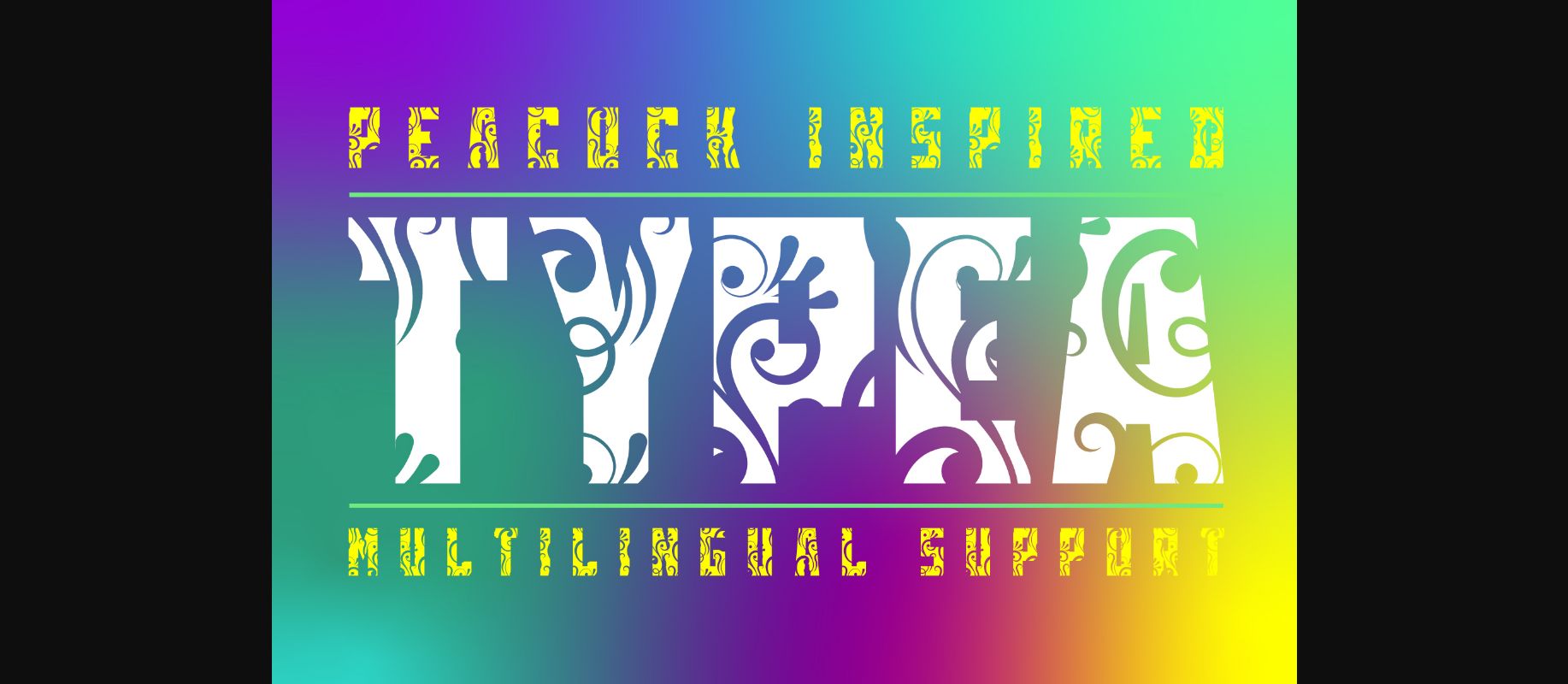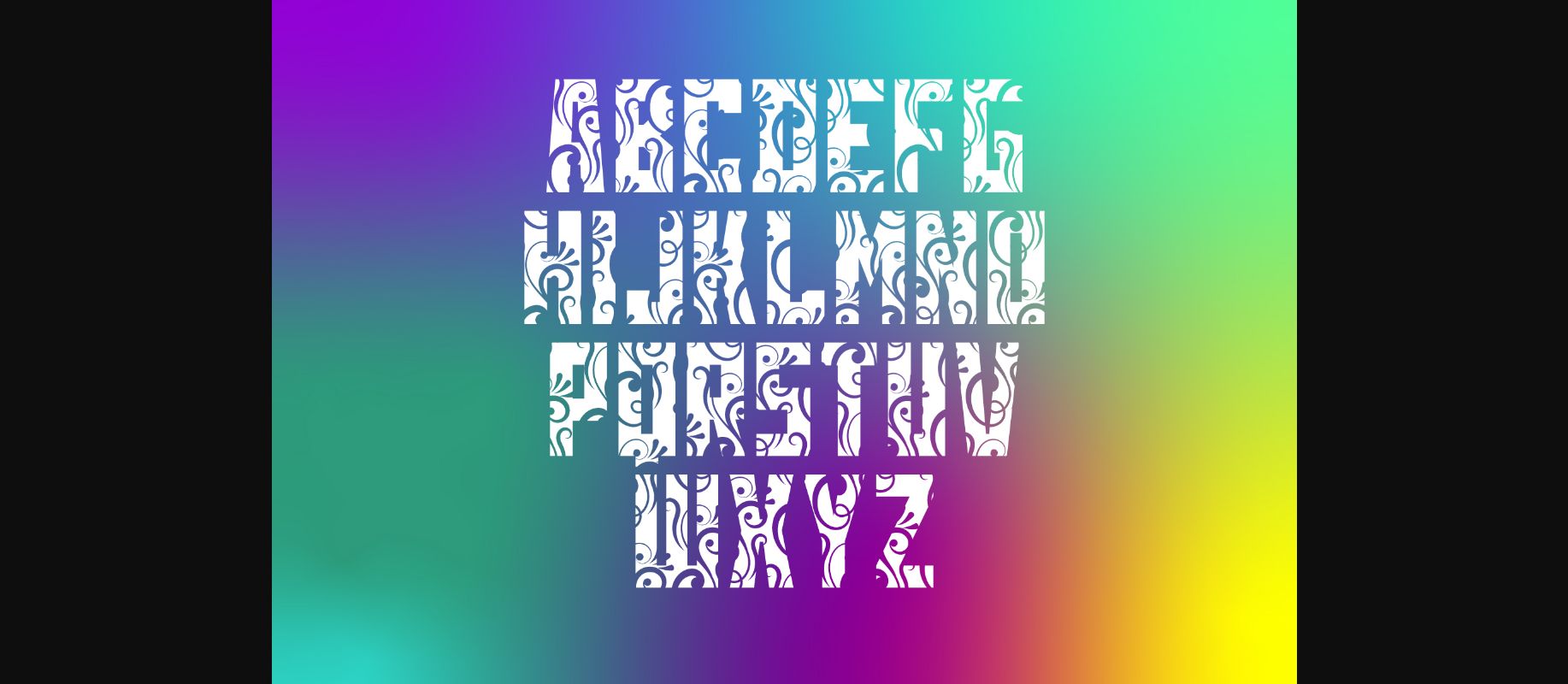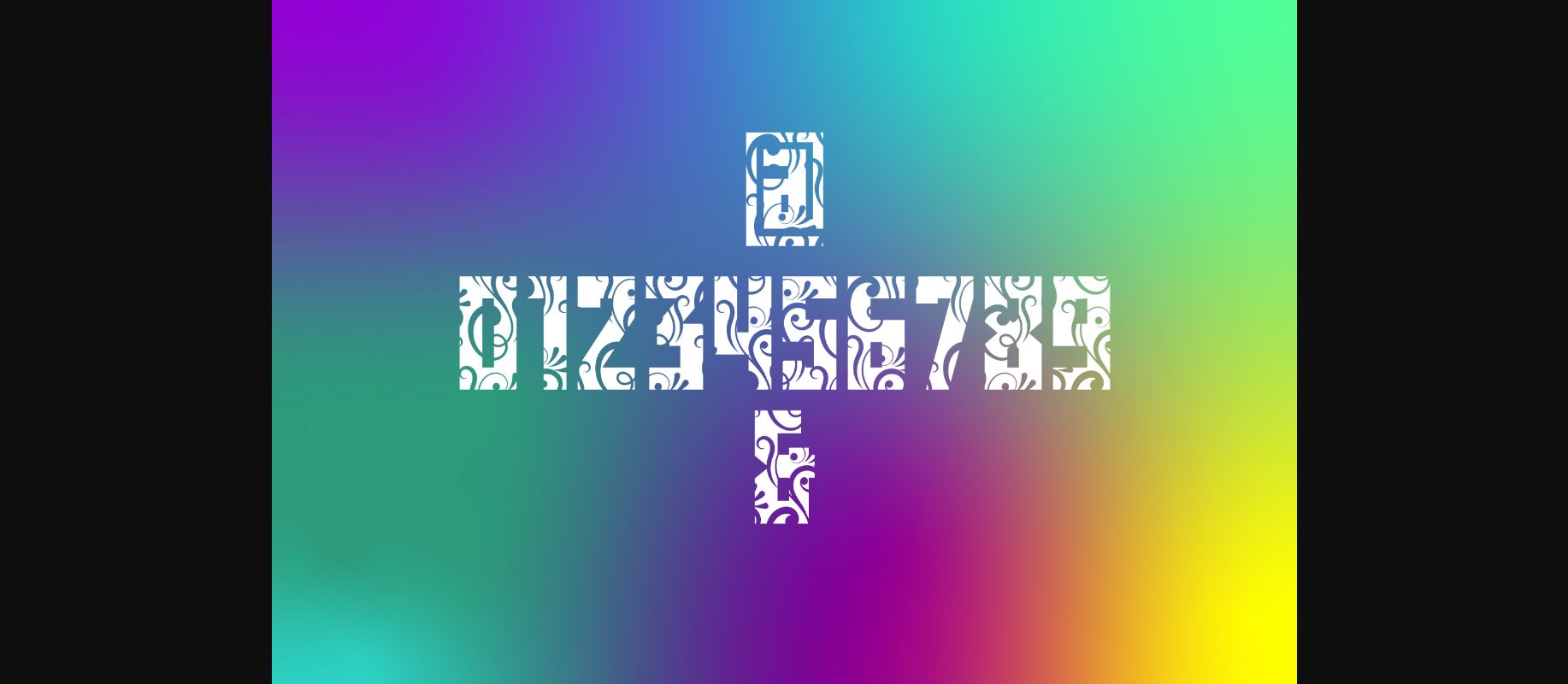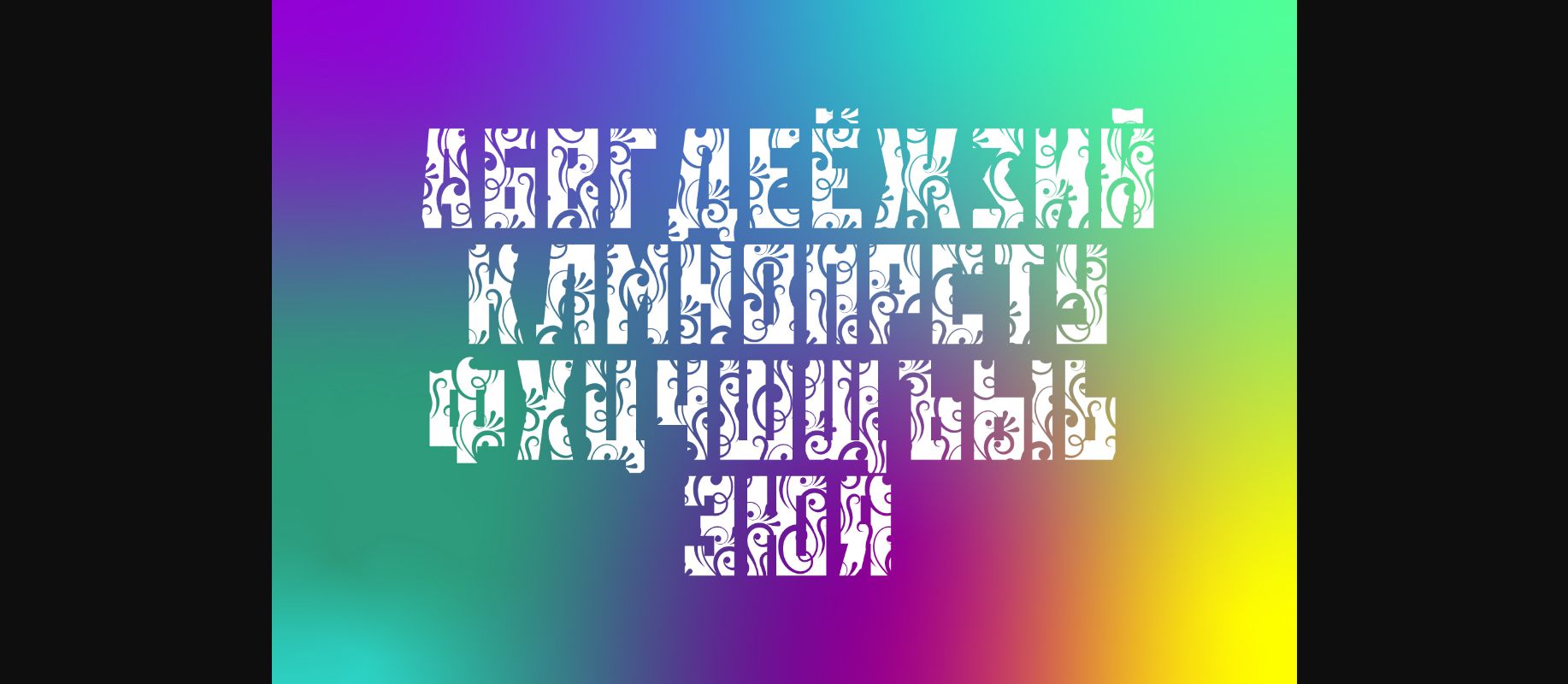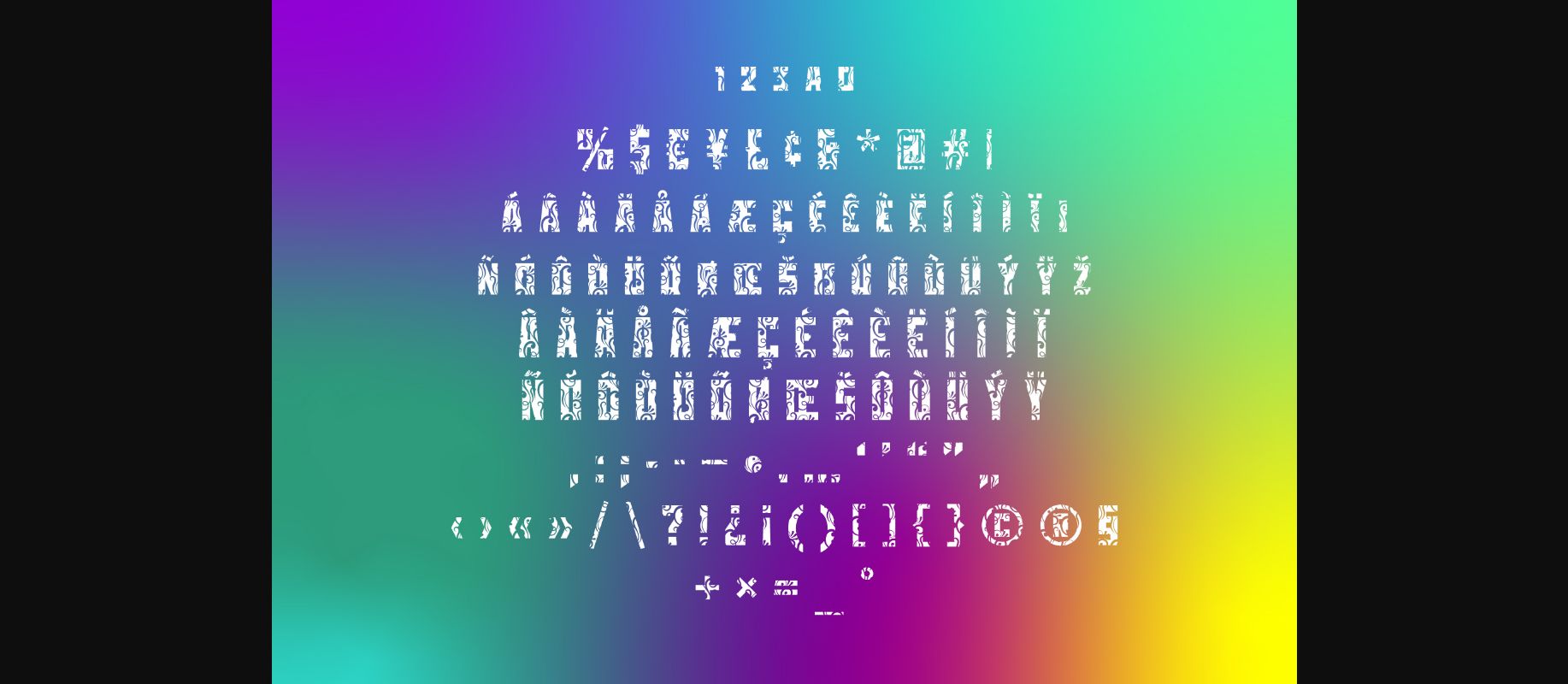
HomeDecorative FontsTypea Font Decorative Fonts Typea Font FacebookXPinterestWhatsApp 1 of 7 ... Typea Font Poster 2... Typea Font Poster 3... Typea Font Poster 4... Typea Font Poster 5... Typea Font Poster 6... Typea Font Poster 7... About Typea Font Typea is a highly detailed and unique decorative font. Fall for its ravishing style and use it to create gorgeous wedding invitations, beautiful stationary art, eye-catching social media posts, and much more! DOWNLOAD NOW People also explored Anastasya Font Nolan Helly Aquenta Fracta Font Anetthy Font Ambrewthy Font Teacher Font Dear Rachell Font History Matter Font Magicline Font 498 0 TagsTypeaTypea Font Previous articleGirly Monogram FontNext articleForest Font LEAVE A REPLY Cancel reply Comment: Please enter your comment! Name:* Please enter your name here Email:* You have entered an incorrect email address! Please enter your email address here Website: Save my name, email, and website in this browser for the next time I comment. Personal Use Free Aline Personal Use Free Read more about this font Bethania Personal Use Free Read more about this font True Love Personal Use Free Read more about this font Adelia Font Personal Use Free Read more about this font BLOG Using Fonts in Digital Marketing: Tips to Strengthen Your Brand Identity In the realm of digital marketing, every visual element plays a crucial role in shaping a brand's identity, and fonts are no exception. The... Free Fonts Risk: Why Free Fonts Can Be Dangerous for Designers The 10 Best Handwriting Fonts to Add Personality to Your Designs Top 10 Handwritten Fonts That Elevate Your Designs